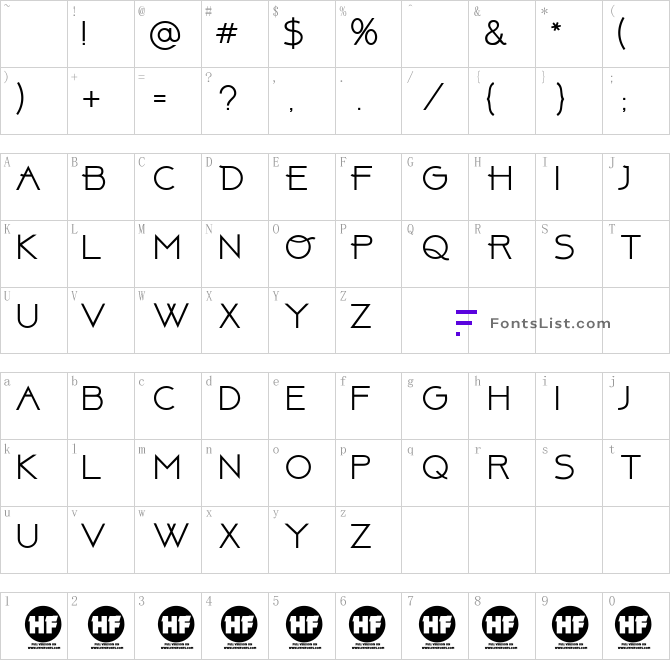
Above-DEMO-Regular.ttf is a very beautiful artistic font, Above-DEMO-Regular.ttf is widely used in the design and printing of various books and pictures,Above-DEMO-Regular.ttf has a strong visual impact,Above-DEMO-Regular.ttf is a commonly used font in newspapers, magazines and books, and is used in posters, e-commerce Poster design, store design, logo design, font design and other fields.Above-DEMO-Regular.